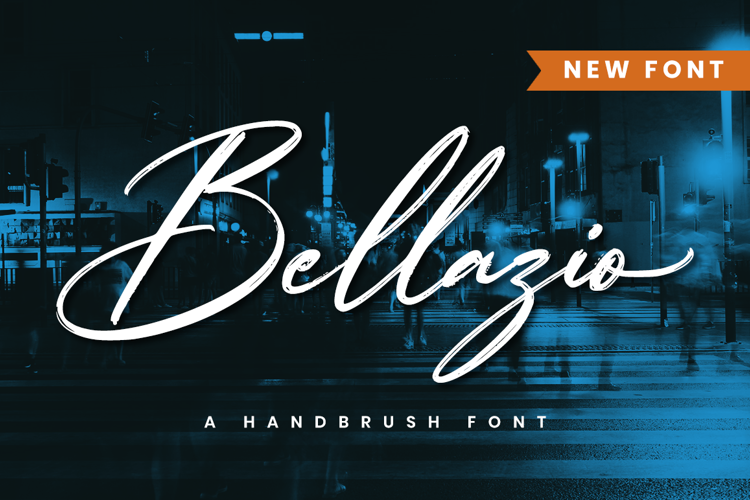
Bellazio Font
Bellazio is a new modern brush font, incredibly adaptable to all sorts of designs. It is suitable for any branding, product packaging, invitation, quote, t-shirt, label, poster, logo that you wish to create.